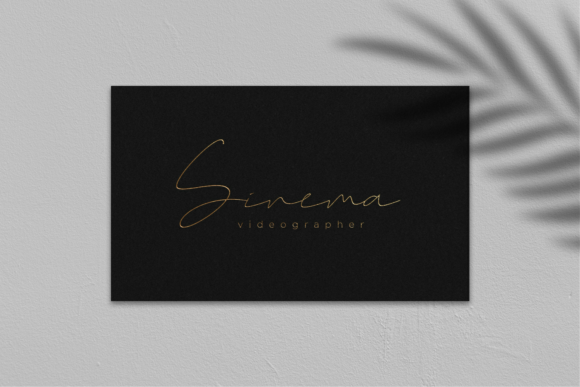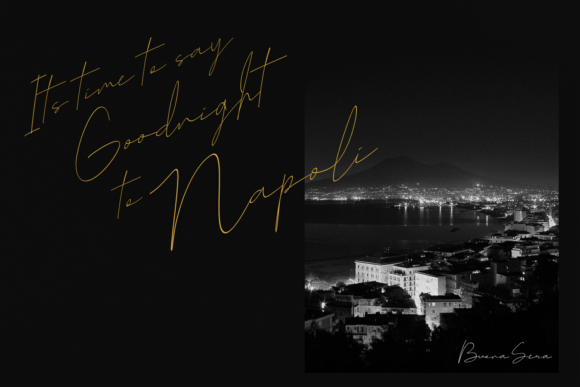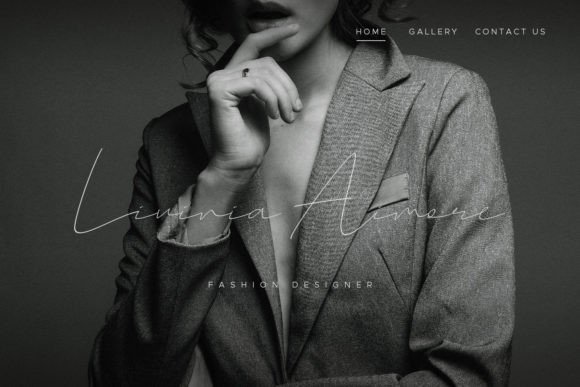
Introducing Corleone Font: The Elegant and Romantic Handwritten Script Font
Are you a designer or crafter looking for a font that can add a touch of elegance and romance to your designs? Look no further than Corleone Font! This beautiful handwritten script font features thin flowing curves that are sure to make your designs stand out. In this article, we’ll take a closer look at Corleone Font and explore its features, benefits, and uses.
What is Corleone Font?
Corleone Font is a handwritten script font that is designed to add a touch of elegance and sophistication to your designs. Its thin flowing curves give it a romantic and feminine feel, making it perfect for designs that require a touch of whimsy and charm. The font is highly versatile and can be used for a wide range of design projects, from wedding invitations and stationery to branding and packaging.
Key Features of Corleone Font
So, what makes Corleone Font so special? Here are some of its key features:
- Handwritten script font: Corleone Font is a handwritten script font that is designed to look like it was written with a pen or pencil. This gives it a personal and intimate feel that is perfect for designs that require a touch of warmth and personality.
- Thin flowing curves: The font features thin flowing curves that give it a elegant and romantic feel. These curves also help to create a sense of movement and fluidity, making the font perfect for designs that require a sense of dynamism.
- Highly legible: Despite its elegant and cursive nature, Corleone Font is highly legible and easy to read. This makes it perfect for designs that require a clear and concise message, such as wedding invitations and stationery.
- Highly versatile: Corleone Font is highly versatile and can be used for a wide range of design projects, from branding and packaging to web design and social media graphics.
Benefits of Using Corleone Font
So, why should you use Corleone Font for your designs? Here are some of its benefits:
- Adds elegance and sophistication: Corleone Font adds a touch of elegance and sophistication to your designs, making it perfect for high-end brands and luxury products.
- Creates a romantic feel: The font’s thin flowing curves create a romantic and feminine feel that is perfect for designs that require a touch of whimsy and charm.
- Highly customizable: Corleone Font is highly customizable, allowing you to adjust its size, color, and style to fit your design needs.
Uses of Corleone Font
So, what can you use Corleone Font for? Here are some of its most popular uses:
- Wedding invitations and stationery: Corleone Font is perfect for wedding invitations and stationery, adding a touch of elegance and romance to your designs.
- Branding and packaging: The font is highly versatile and can be used for branding and packaging, adding a touch of sophistication and elegance to your products.
- Web design: Corleone Font can be used for web design, adding a touch of elegance and romance to your website.
- Social media graphics: The font is perfect for social media graphics, adding a touch of whimsy and charm to your posts and updates.
In conclusion, Corleone Font is a beautiful handwritten script font that is perfect for designers and crafters looking to add a touch of elegance and romance to their designs. Its thin flowing curves and highly legible nature make it perfect for a wide range of design projects, from wedding invitations and stationery to branding and packaging. With its highly customizable and easy-to-use nature, Corleone Font is a must-have for any designer or crafter looking to take their designs to the next level.